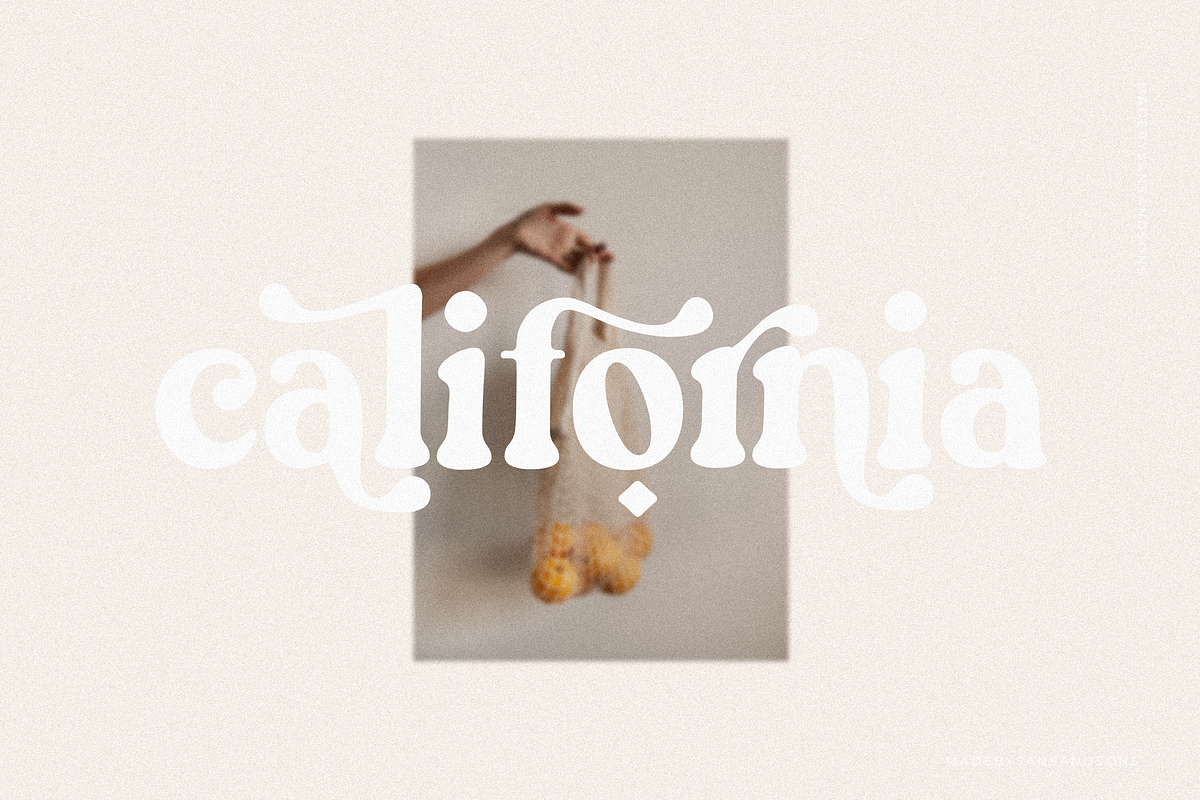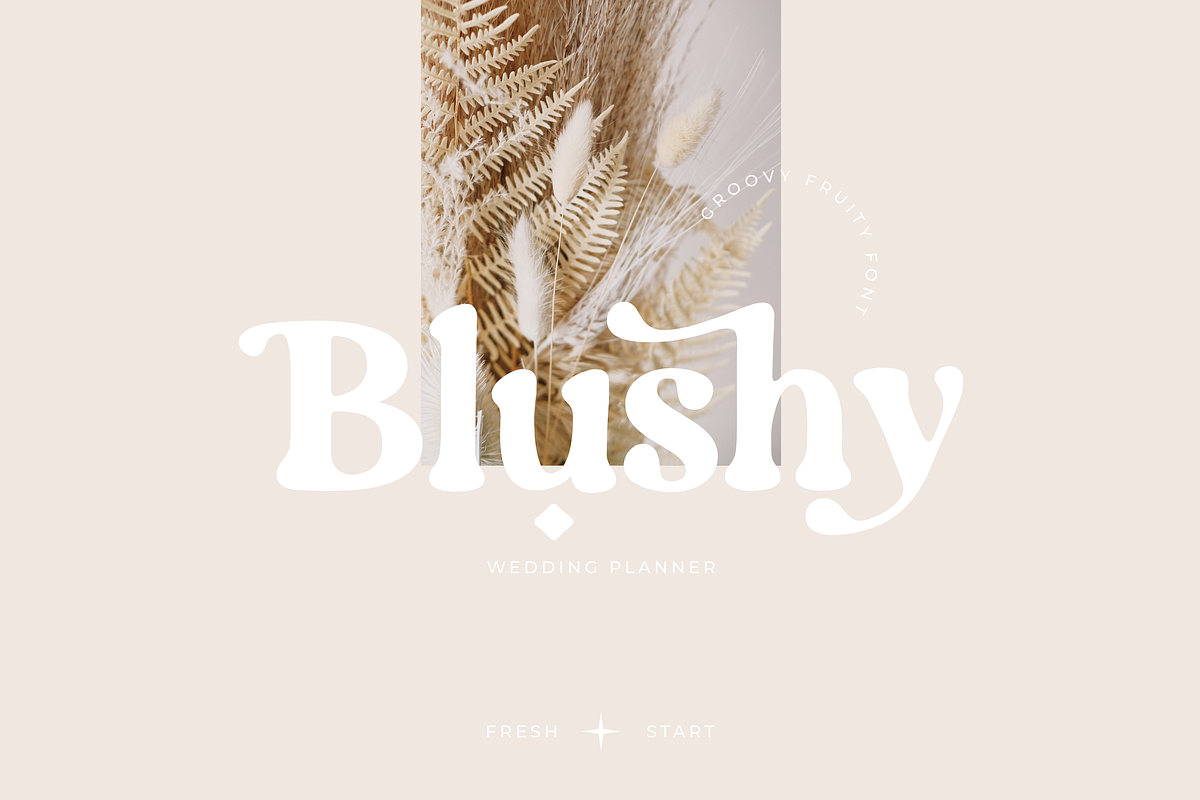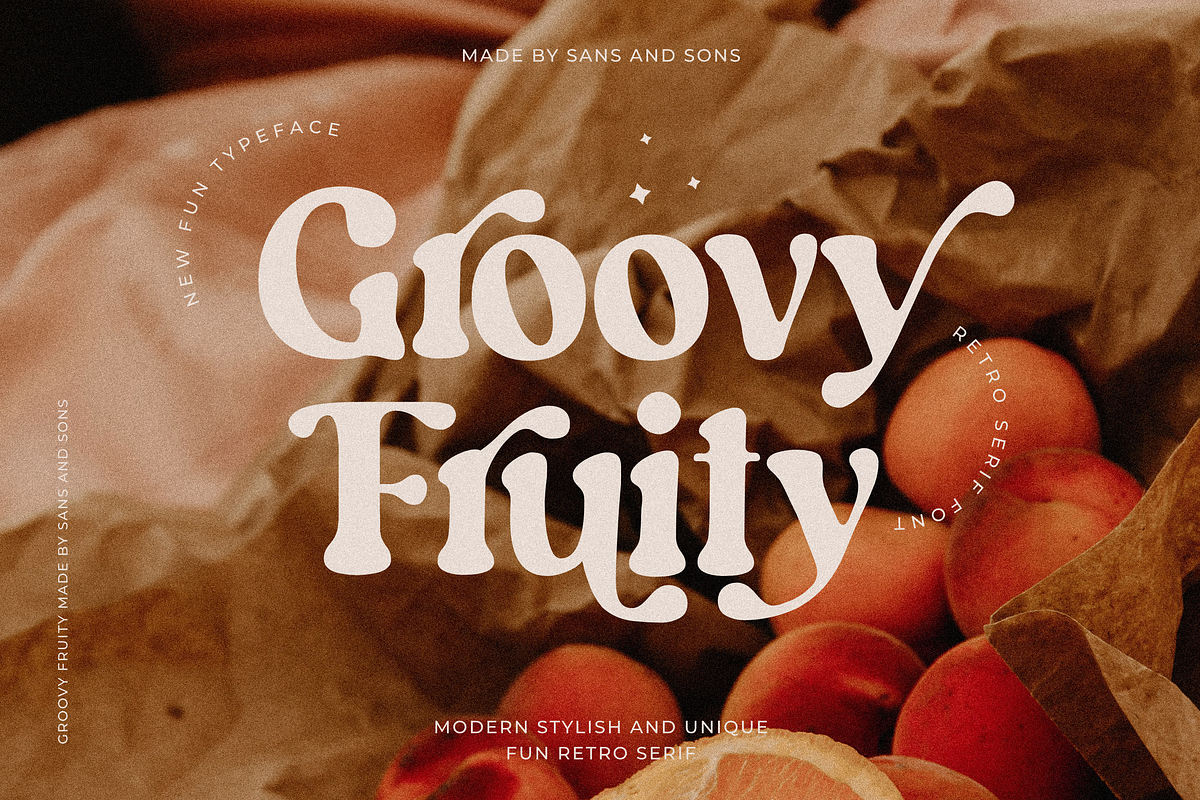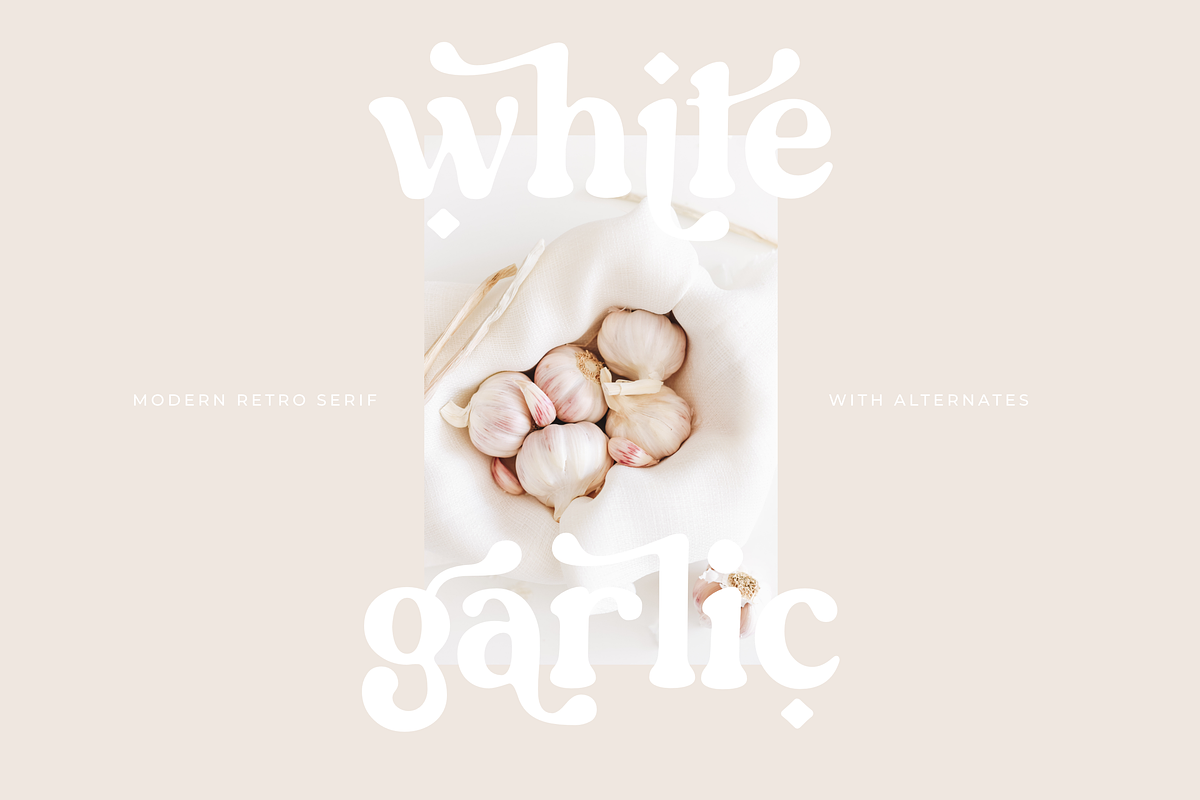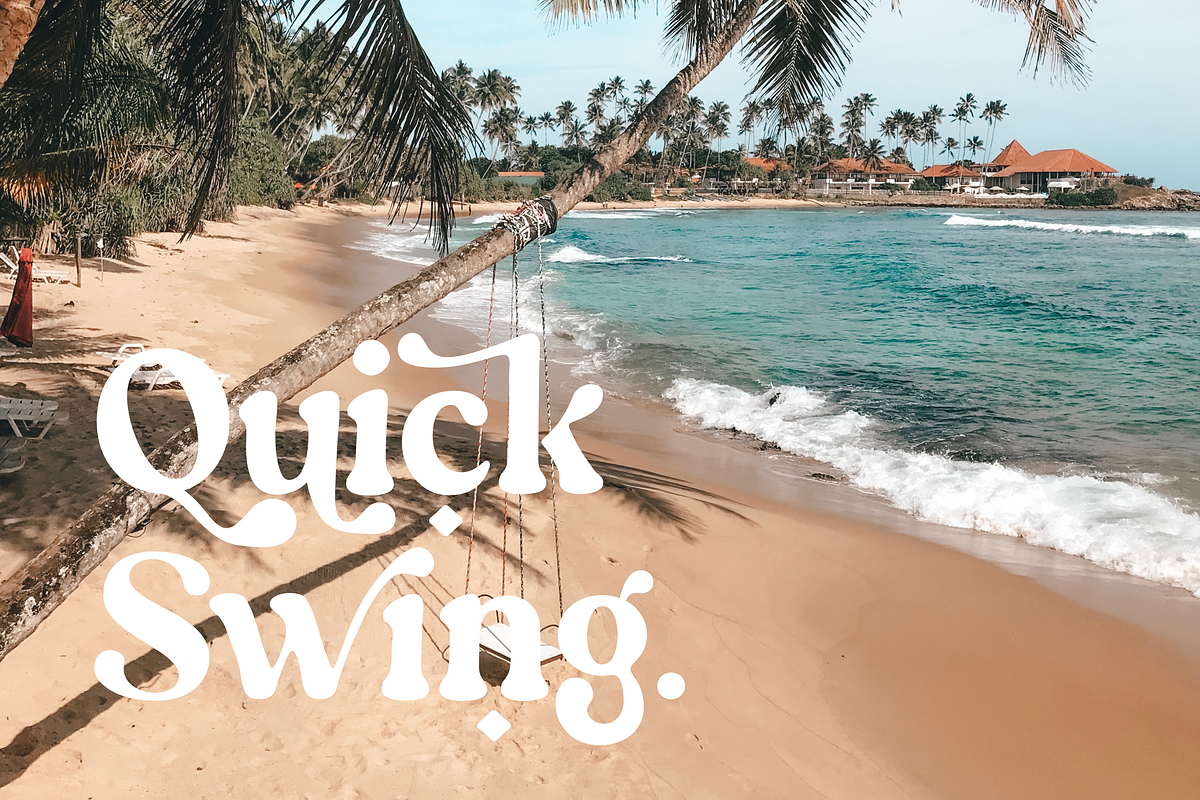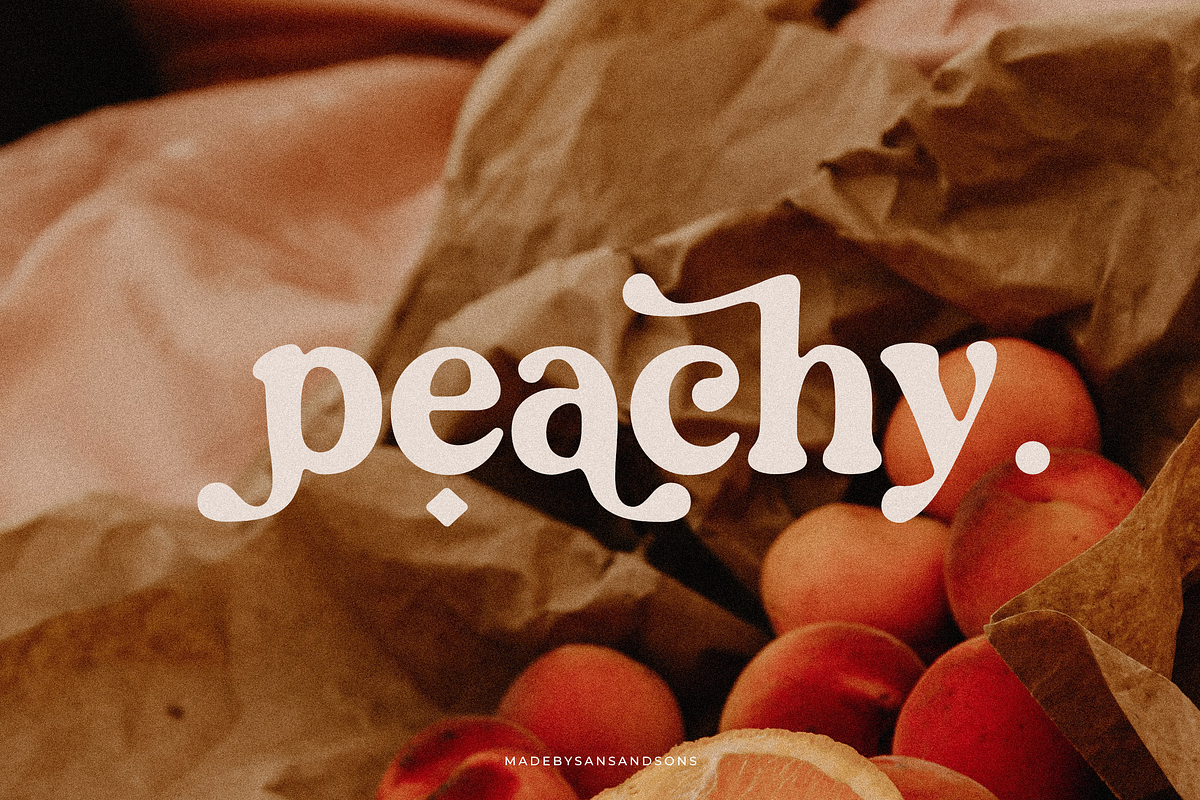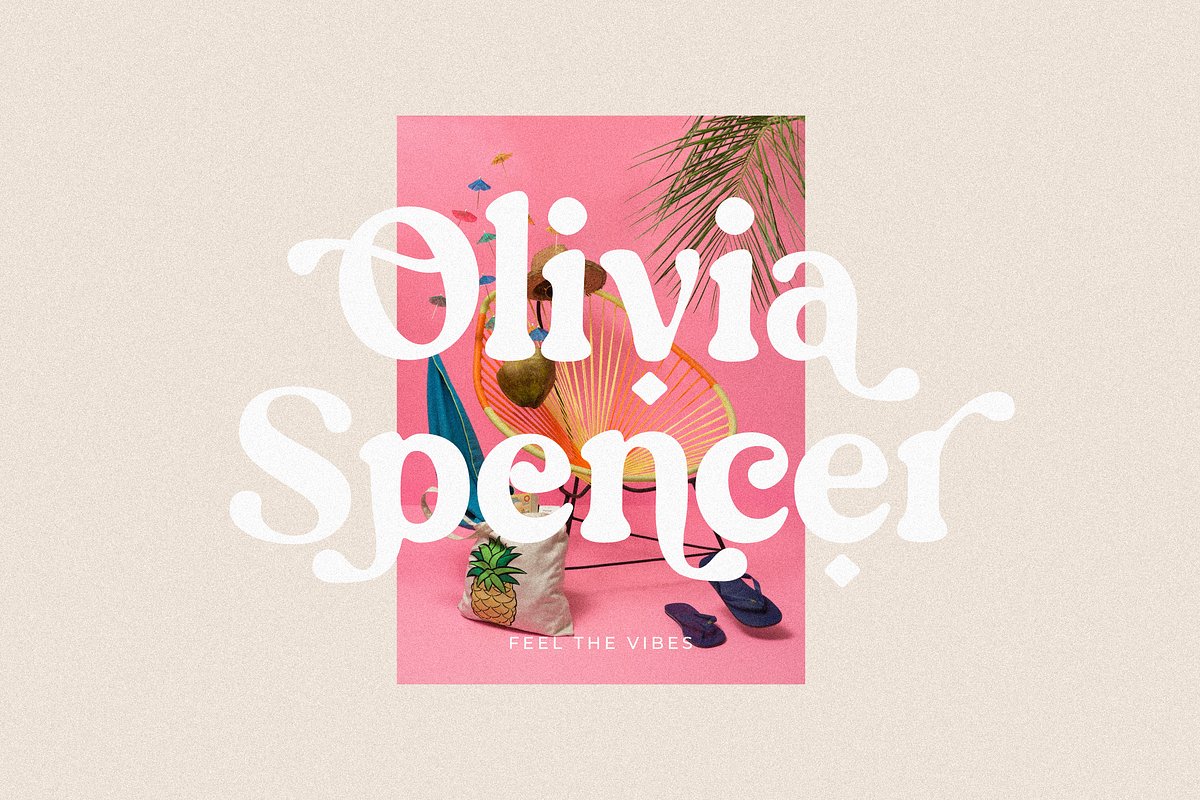
Groovy Fruity - Retro Serif
Groovy Fruity - Fun Retro Serif Font by Sans and Sons
introducing our new "Groovy Fruity" Modern Retro with Handdrawn Style is perfect for branding, logos, invitation, master heads, and more.